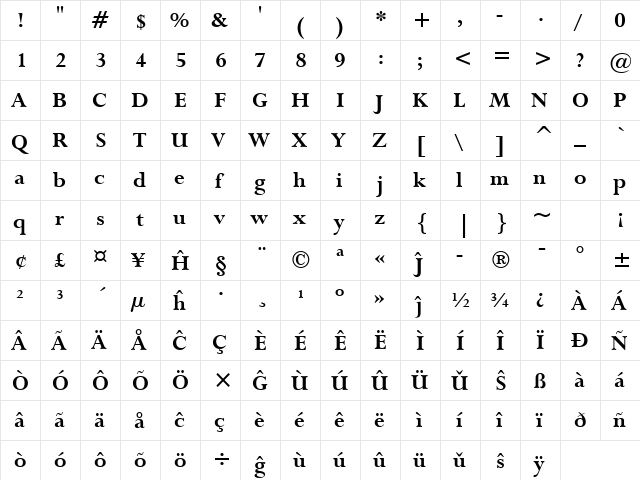
Lapidary333 BT Eo Bold
Design Context for Lapidary333 BT Eo Typeface
Lapidary333 BT Eo is a composed and adaptable typeface that performs quietly and consistently across a wide range of design contexts. Its bold stroke weight gives it real presence on the page.